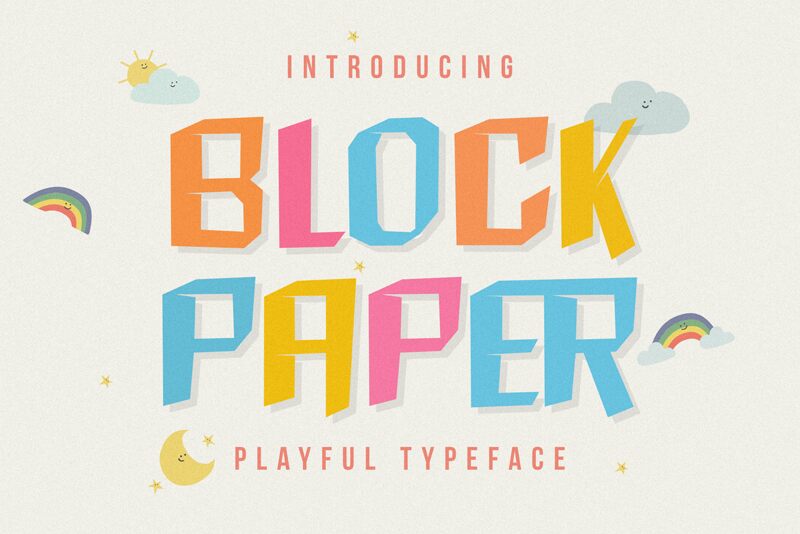
Block Paper
Looking for a font that perfectly captures the essence of playful creativity? Look no further than Block Paper, the bold and whimsical display font from DumadiStyle. With its chunky, hand-drawn letterforms and energetic personality, this typeface is perfect for bringing a touch of fun to all kinds of projects. Whether you're designing a children's book cover or crafting eye-catching social media graphics, Block Paper is sure to make your text pop off the page. So why settle for boring fonts when you can add some bold playfulness to your work with Block Paper?